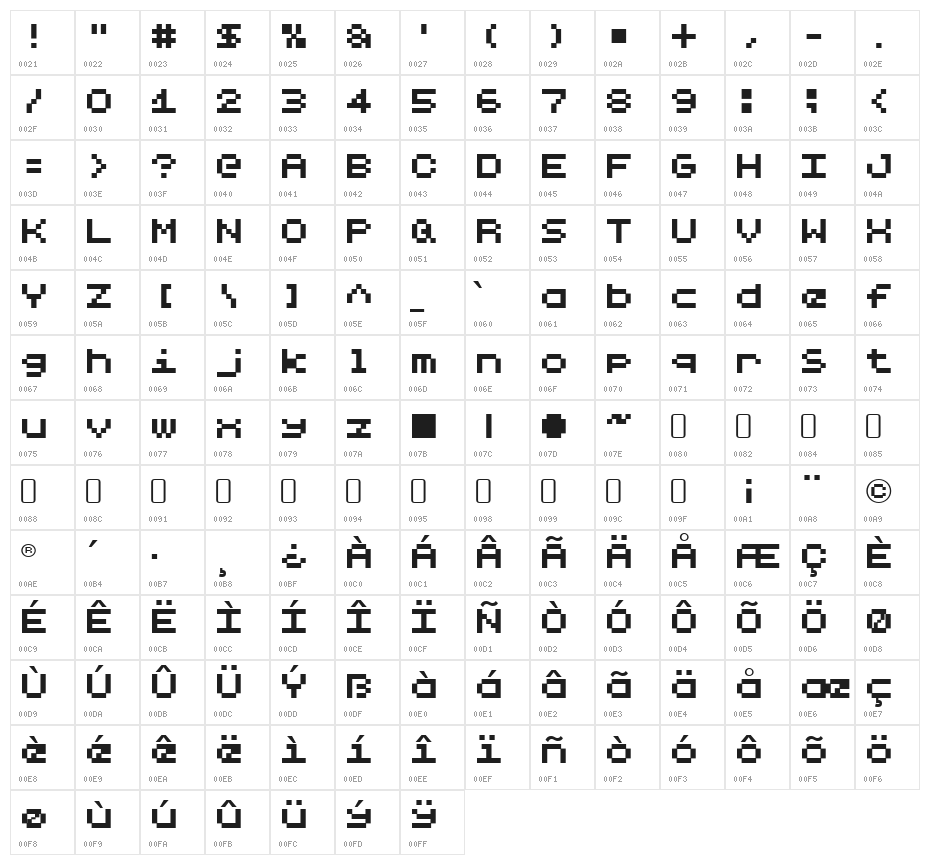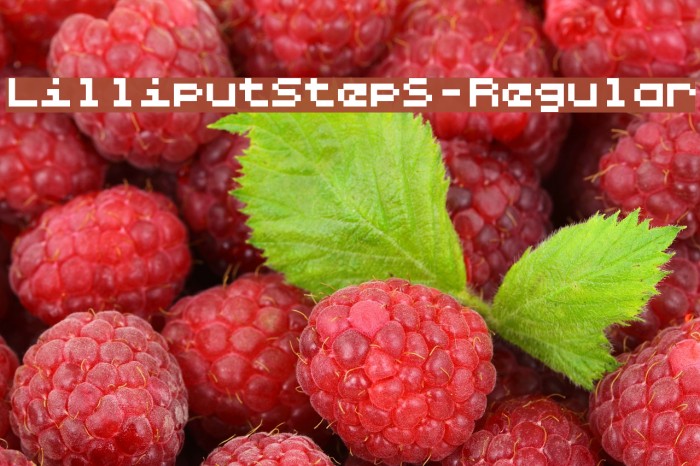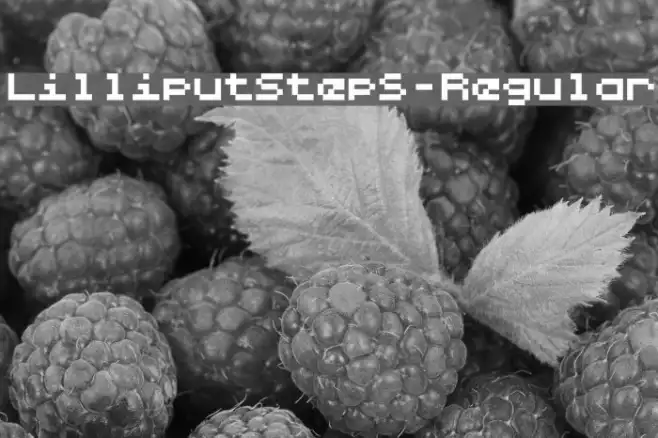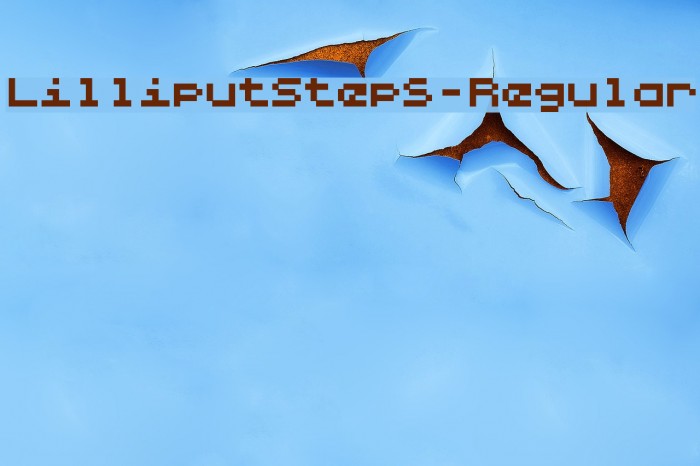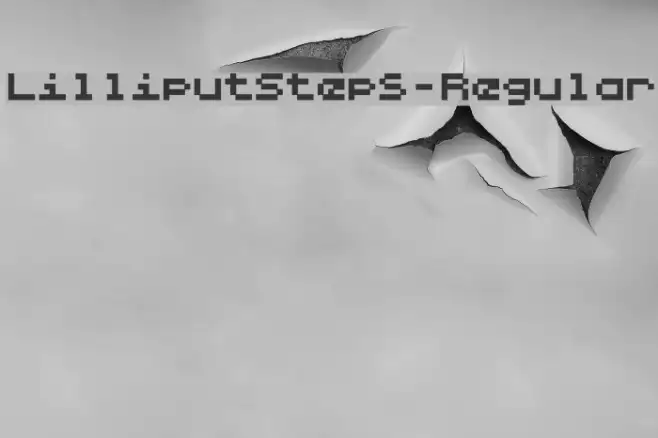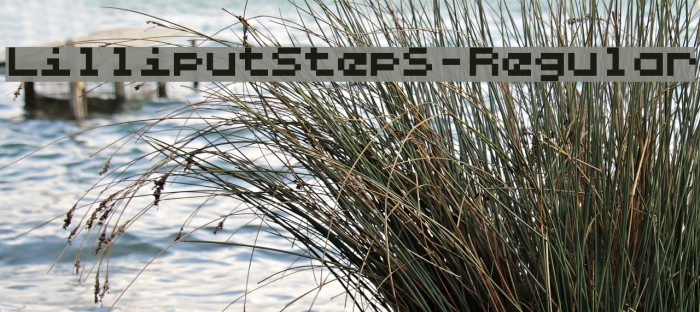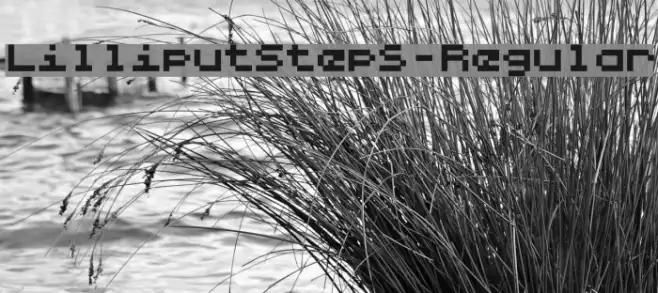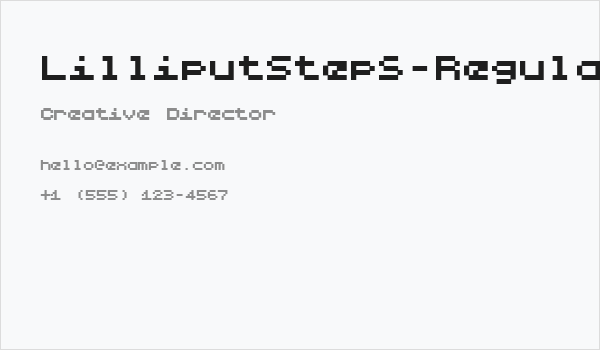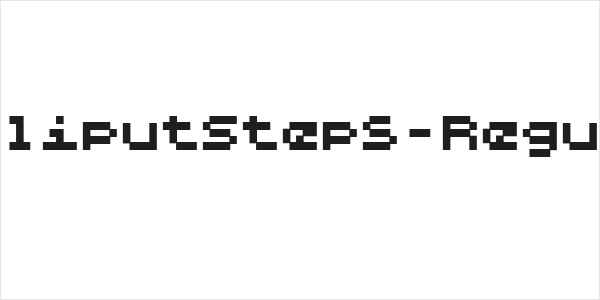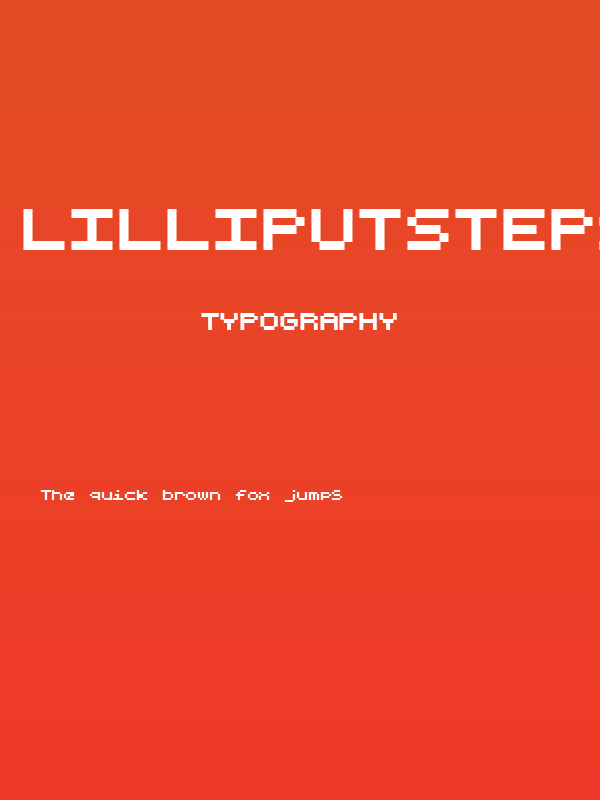
LilliputSteps-Regular Font
LilliputSteps-Regular Description
This font features a pixelated, blocky design reminiscent of early digital displays and retro video games. Each character is constructed with a uniform grid-like structure, giving it a distinctly digital and geometric appearance. The uppercase and lowercase letters maintain a consistent height, contributing to a monospaced feel. The numerals and special characters follow the same pixelated style, ensuring uniformity across all glyphs. The font's simplicity and clarity make it highly legible, even at smaller sizes, while its nostalgic aesthetic evokes a sense of vintage computing.
| Use Case | Logos, Headlines, Digital Art |
| Proposed Projects | Ideal for retro-themed designs, video game graphics, digital art projects, or any creative work that seeks to evoke nostalgia for early computing. |